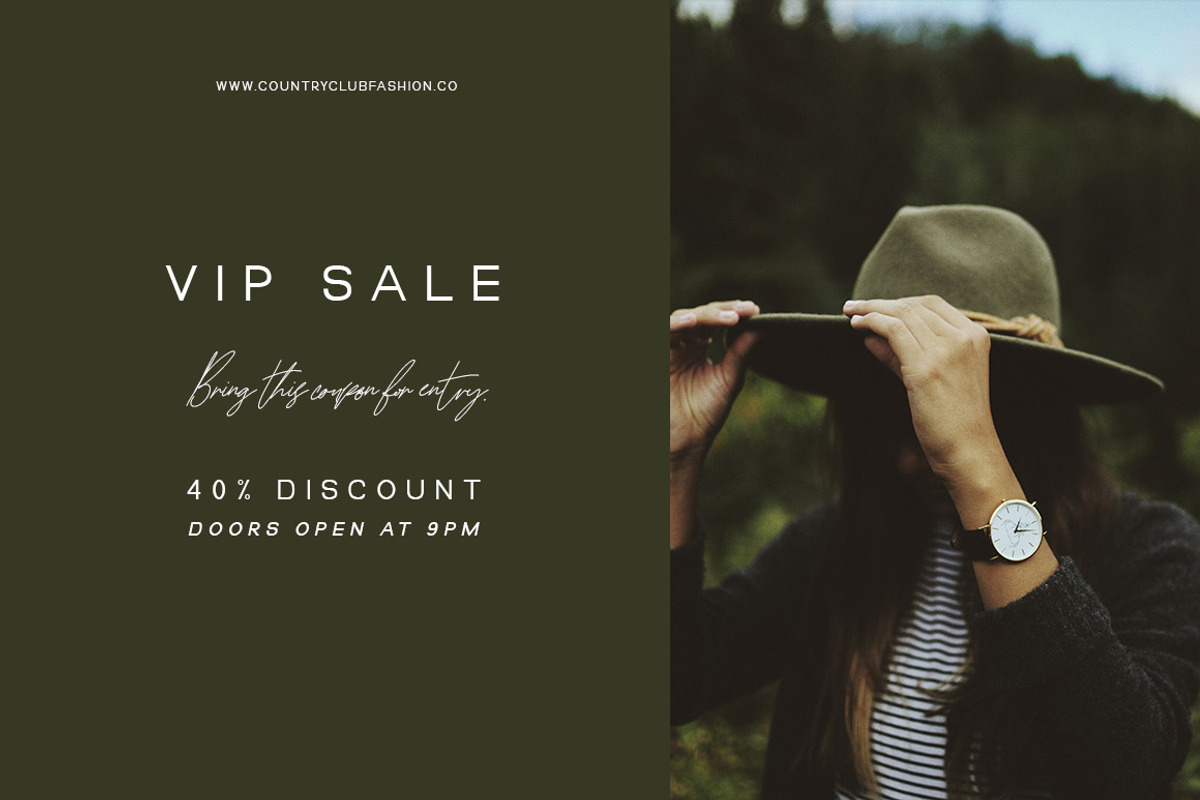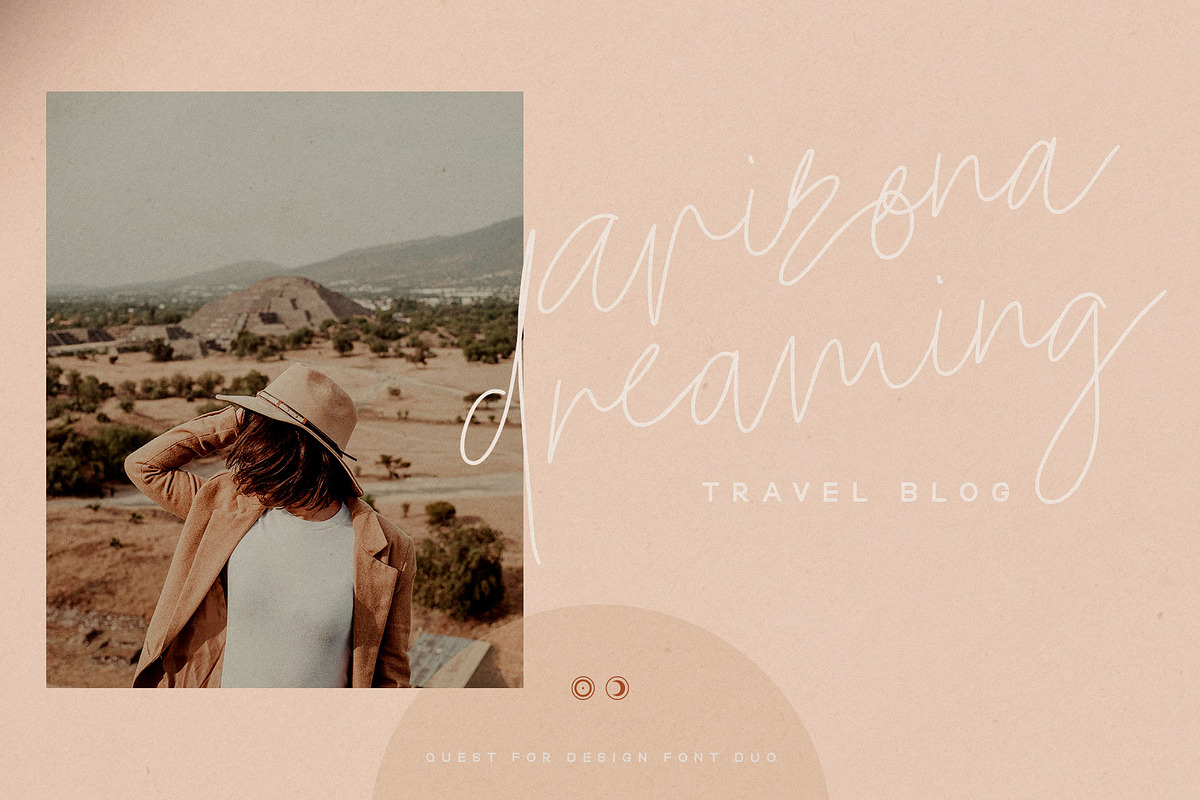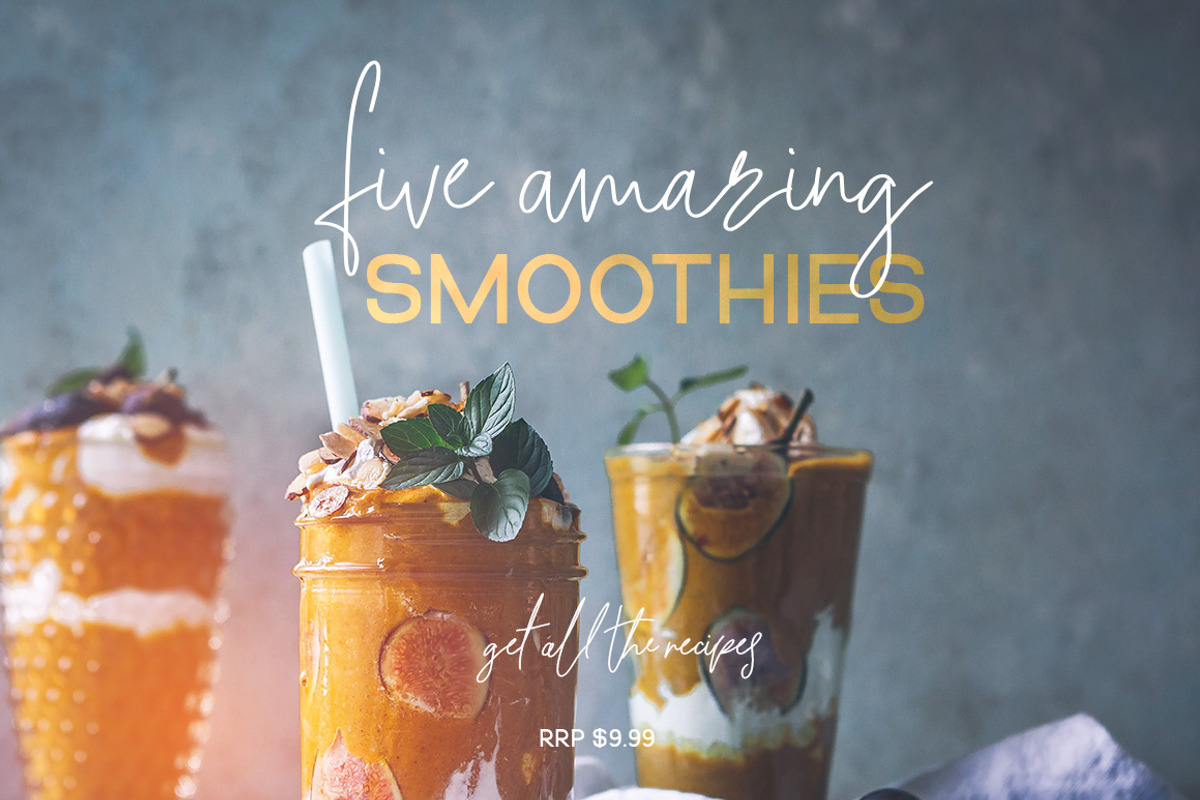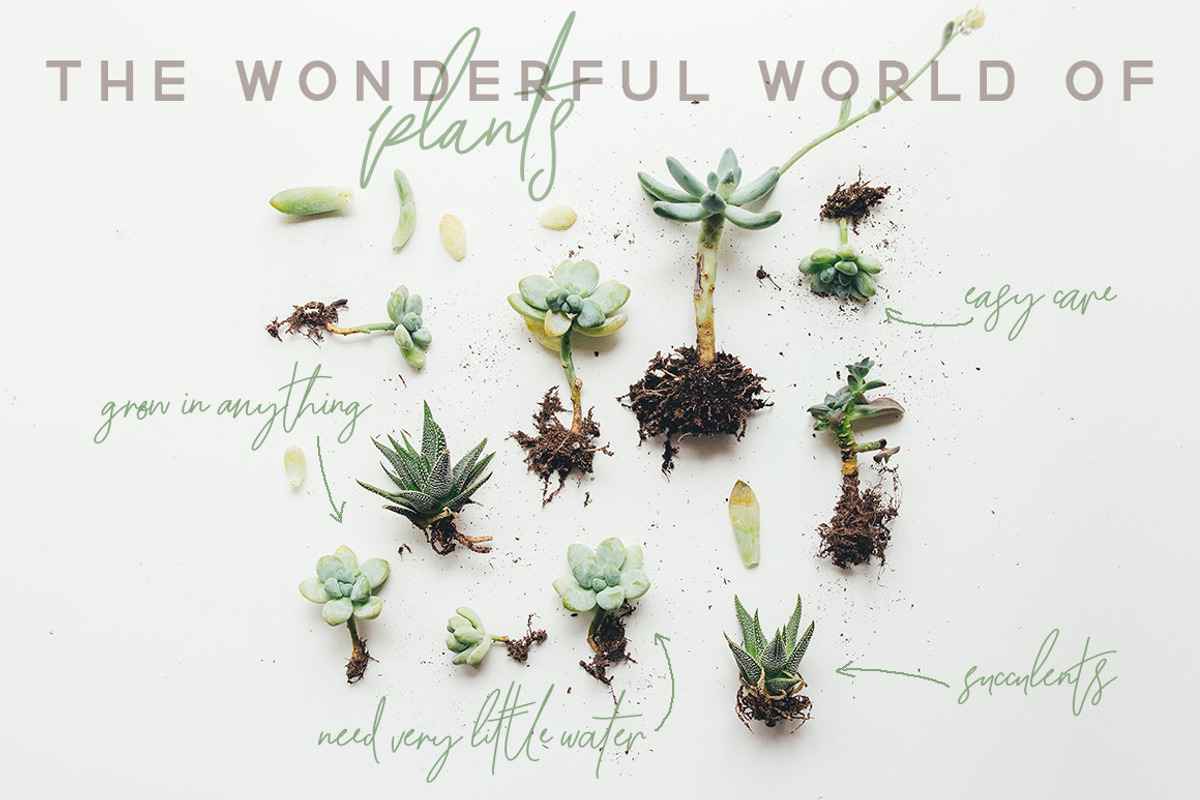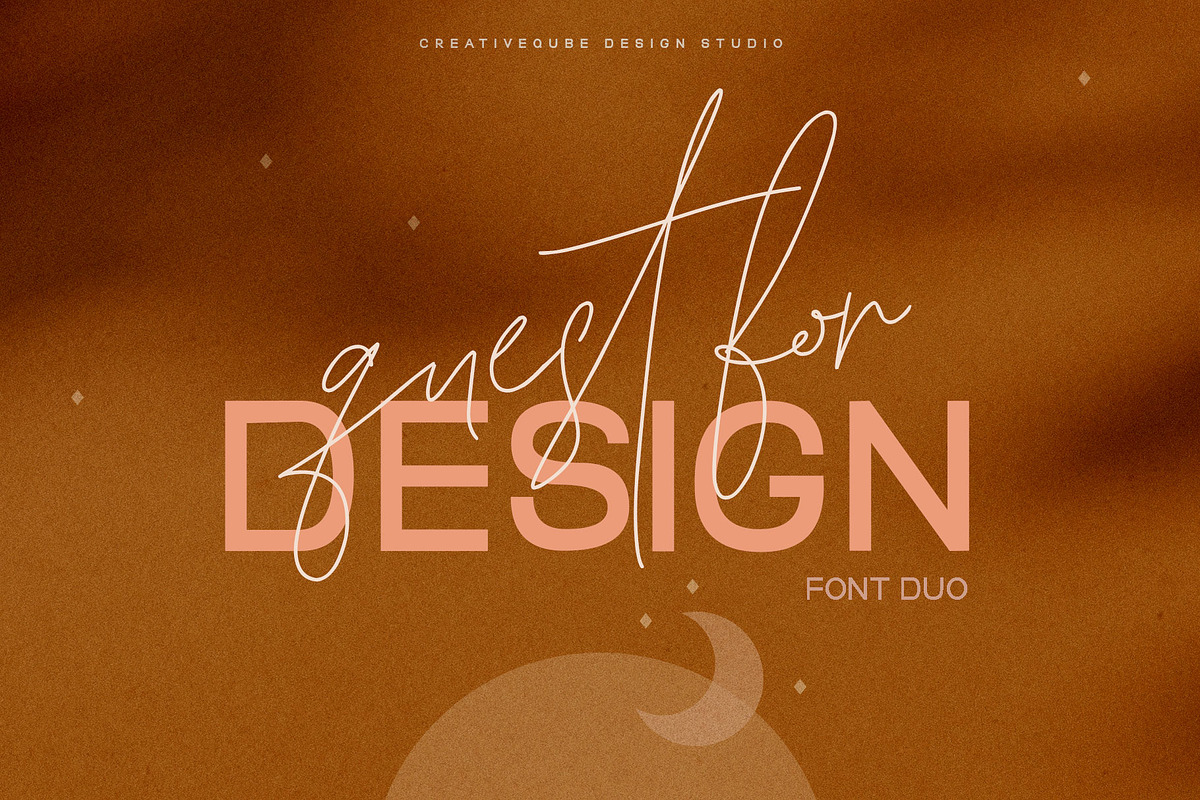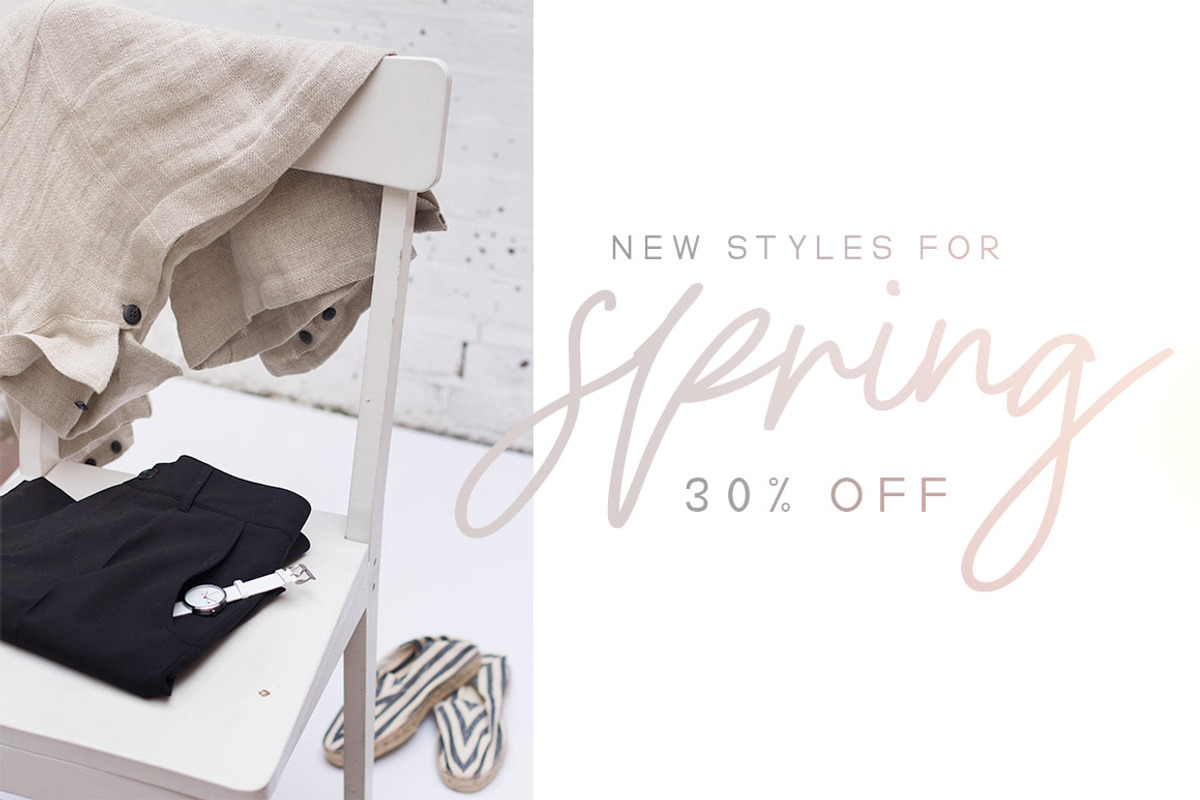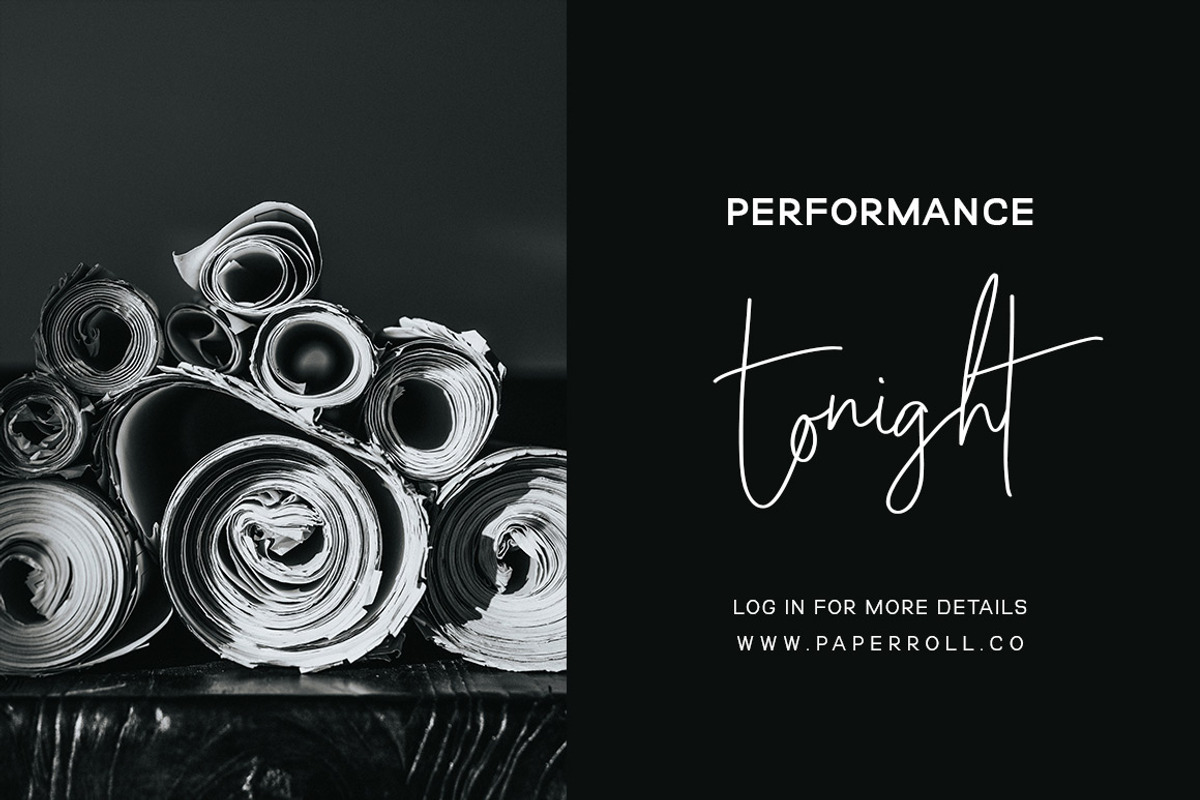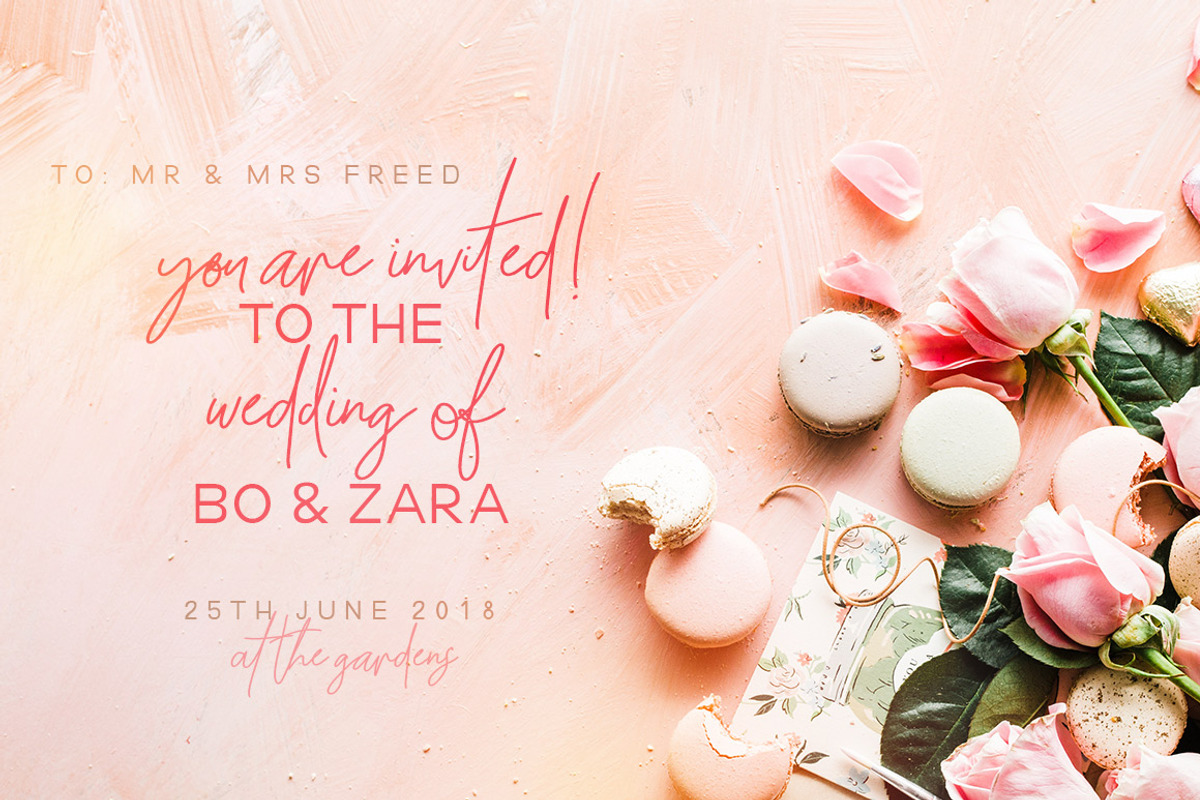
Quest for Design Font Duo
Introducing Quest for Design Font duo. This super stylish natural script font is paired with a simple clean sans serif to create the perfect pair!
Both fonts come in different weights and italic ...creating the perfect family!
International characters supported.
- The script includes lots of unique glyph pairs to create that awesome relaxed natural hand written look.
- International characters supported.
Why Quest for Design Font Duo is worth a look
Quest for Design Font Duo by Creativeqube Design fits naturally into Branding, posters, packaging, typography.